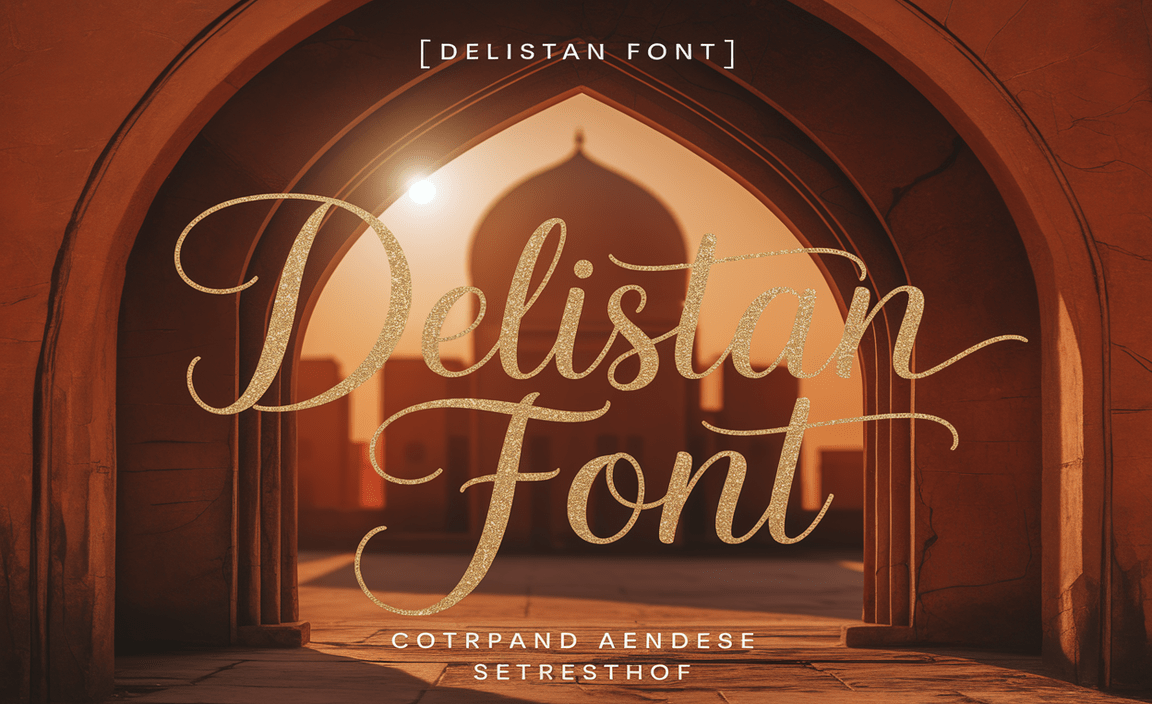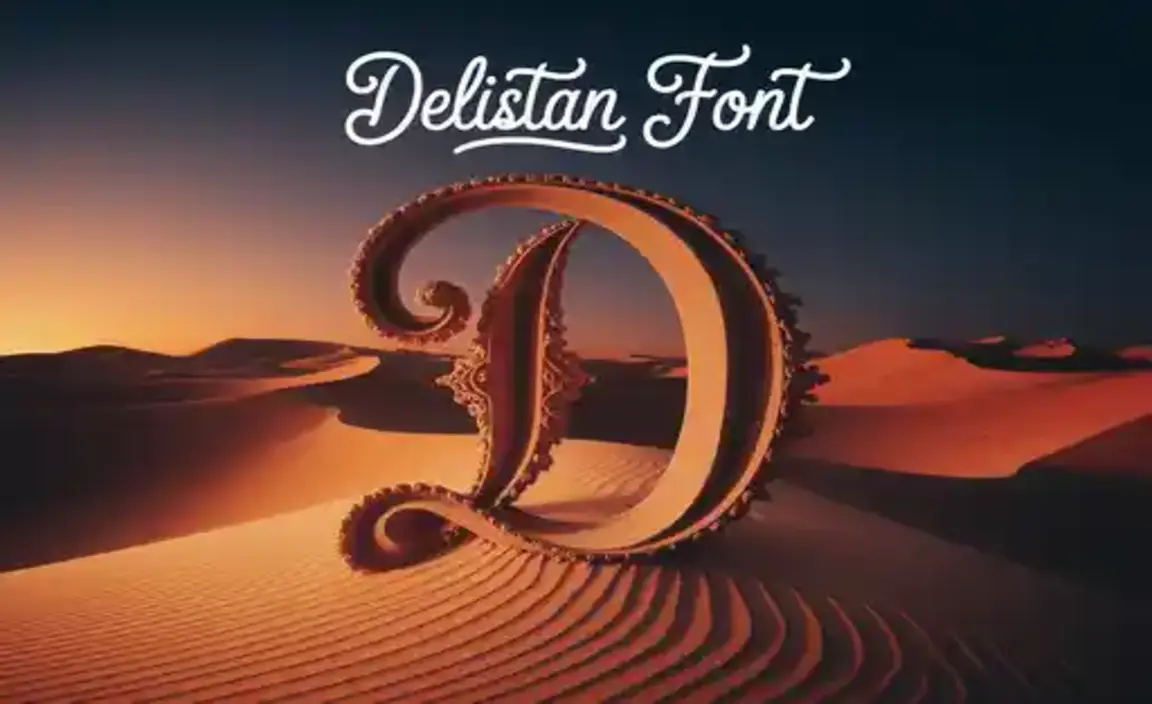
The Delistan Font, designed by Typebae Foundry, is a stunning handwritten script font that combines elegance with creative versatility. With its flowing and cursive style, smooth strokes, and beautifully connected letters, Delistan Font delivers a sophisticated yet playful vibe. Ideal for personal projects or branding, this font brings a unique charm to various creative applications, including invitations, logos, and design elements.
Type Of Delistan Font (Font Family)
The Delistan Font Family features a single, beautifully designed style:
- Delistan Regular
| Style: | Handwritten |
Using Occasions Of The Delistan Font
The adaptability of Delistan Font makes it suitable for numerous creative uses:
- Invitations: Add a touch of elegance to wedding or event invitations.
- Logos: Create a personalized and professional brand identity.
- Social Media Graphics: Perfect for stylish Instagram posts, Pinterest pins, and Facebook visuals.
- Branding: Elevate beauty and fashion products with refined typography.
- Print Templates: Enhance brochures, greeting cards, and posters.
Delistan Font Found In Use
The Delistan Font shines in the following design scenarios:
- Printed Materials: Greeting cards, posters, and business branding materials.
- Branding: Sophisticated logos and brand visuals for beauty and fashion.
- Digital Content: Blogs, typography designs, and social media posts.
Features Of Delistan Font
- Smooth Strokes: The font’s refined curves ensure readability and elegance.
- Sophisticated Yet Playful Vibe: Strikes the perfect balance for creative designs.
- Character Map: Supports multilingual designs for global projects.
- Beautifully Connected Letters: Offers a seamless and natural flow.
Delistan Font is an exceptional handwritten script font that brings elegance and charm to every design. Whether used for personal projects like invitations or professional branding, this versatile typeface guarantees a sophisticated finish. Ensure compliance with licensing terms by purchasing the full version for commercial use, and enjoy creating timeless designs with the unique charm of Delistan Font.
1.What Is Delistan Font, And Why Is It Special?
Delistan Font is a handwritten script font crafted by Typebae Foundry, known for its flowing and cursive style, smooth strokes, and a sophisticated yet playful vibe. Its design combines beautifully connected letters with elegance, making it ideal for branding, invitations, and creative projects.
2.What Styles Are Available In The Delistan Font Family?
The Delistan Font Family includes a single style: Delistan Regular. This 1-style handwriting font is provided in TTF format, ensuring compatibility with most design software.
3.Does Delistan Font Support Multilingual Designs?
Yes, Delistan Font comes with a character map that supports multiple languages, making it suitable for global branding and text-based creative projects.
4.What Are The Ideal Use Cases For Delistan Font?
Delistan Font is versatile and excels in:
- Invitations: Adds charm to wedding or event designs.
- Logos and Branding: Enhances your brand with elegance and personality.
- Social Media Graphics: Perfect for Instagram posts, Pinterest pins, and digital designs.
- Printed Materials: Suitable for greeting cards, posters, and brochures.
7.Why Is Delistan Font Perfect For Creative Professionals?
Delistan Font’s smooth strokes, elegance, and flowing and cursive style make it a favorite for designers. Its adaptability in various design elements ensures it meets the needs of text-based branding, calligraphy-inspired projects, and decorative design tasks.